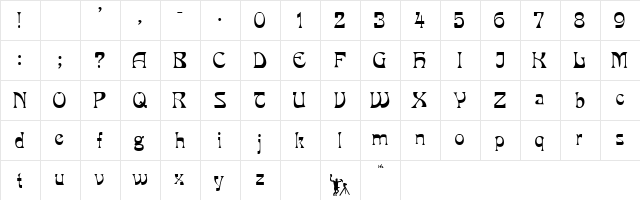
Mira Normal
Design Context for Mira Typeface
Mira is a composed and adaptable typeface that performs quietly and consistently across a wide range of design contexts.